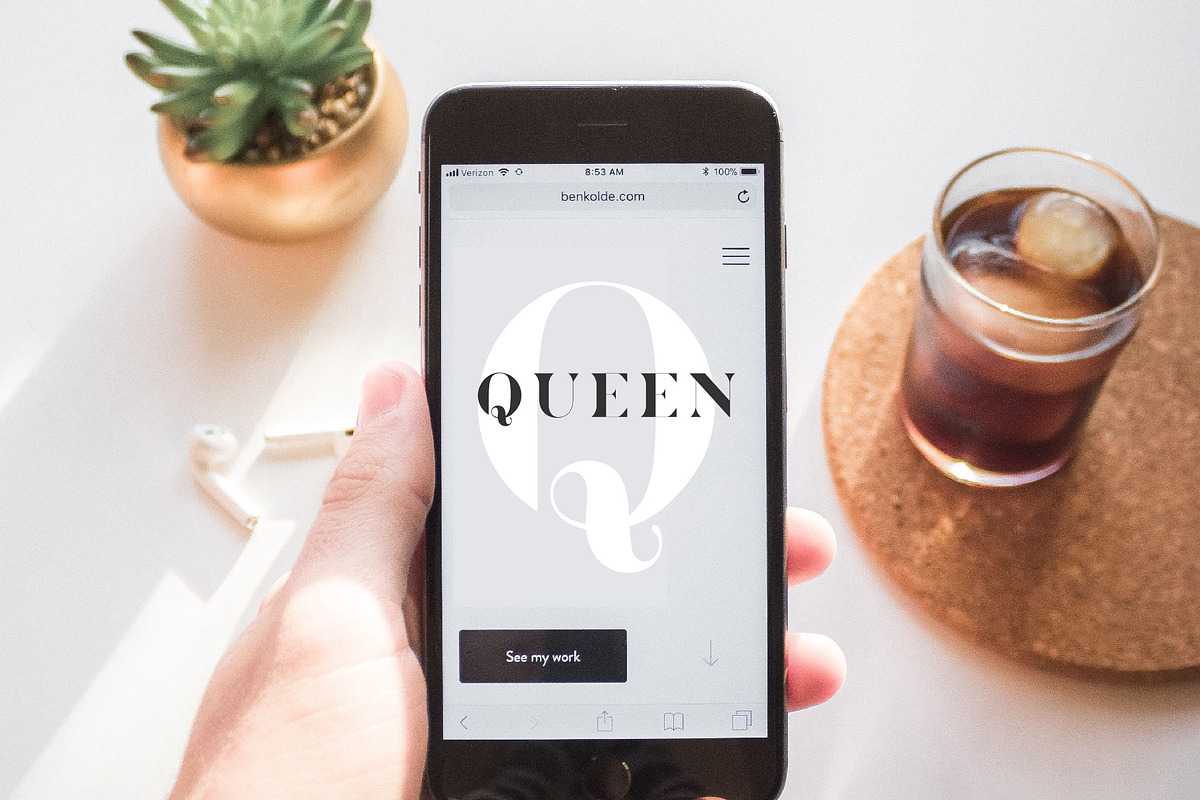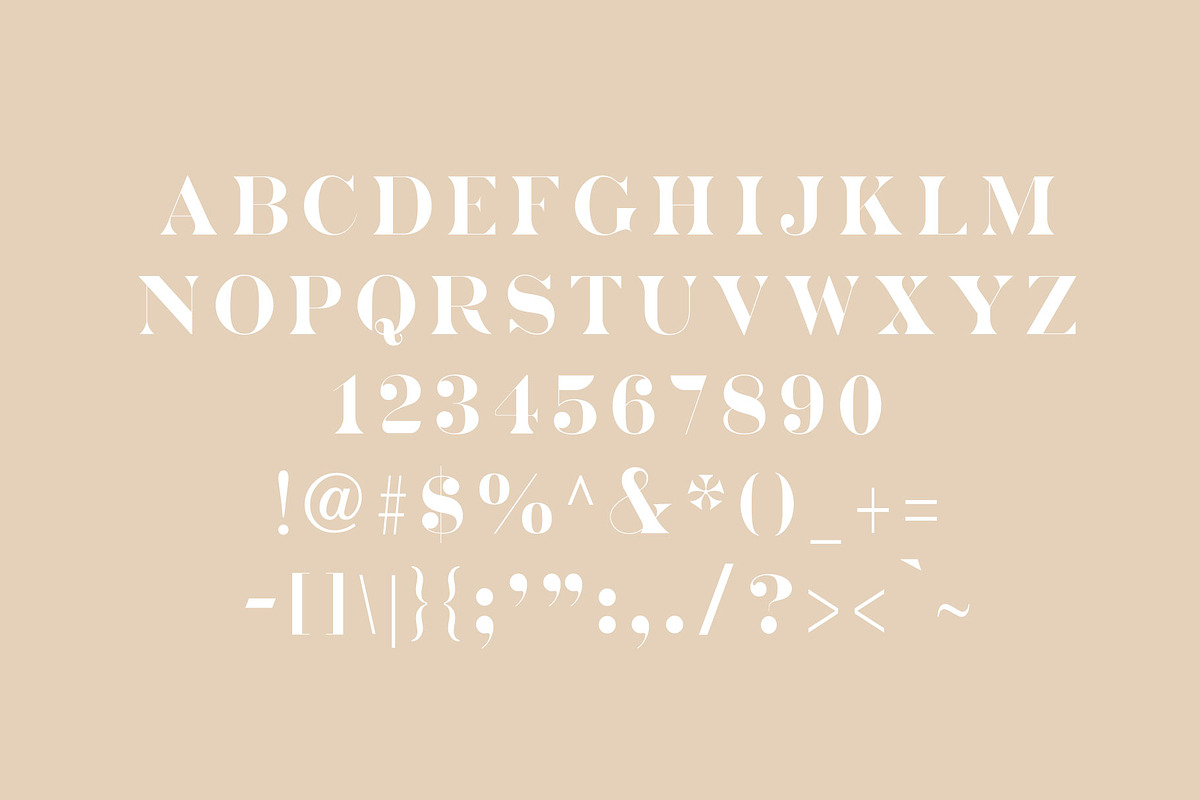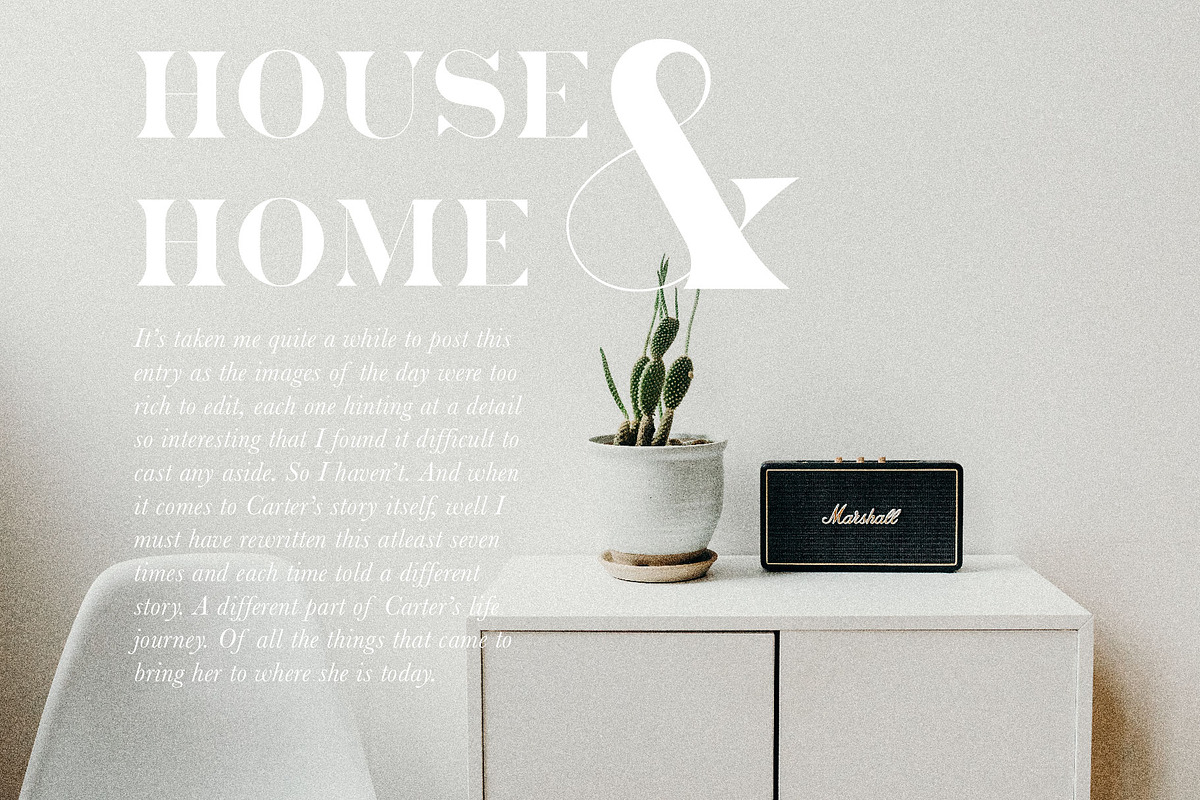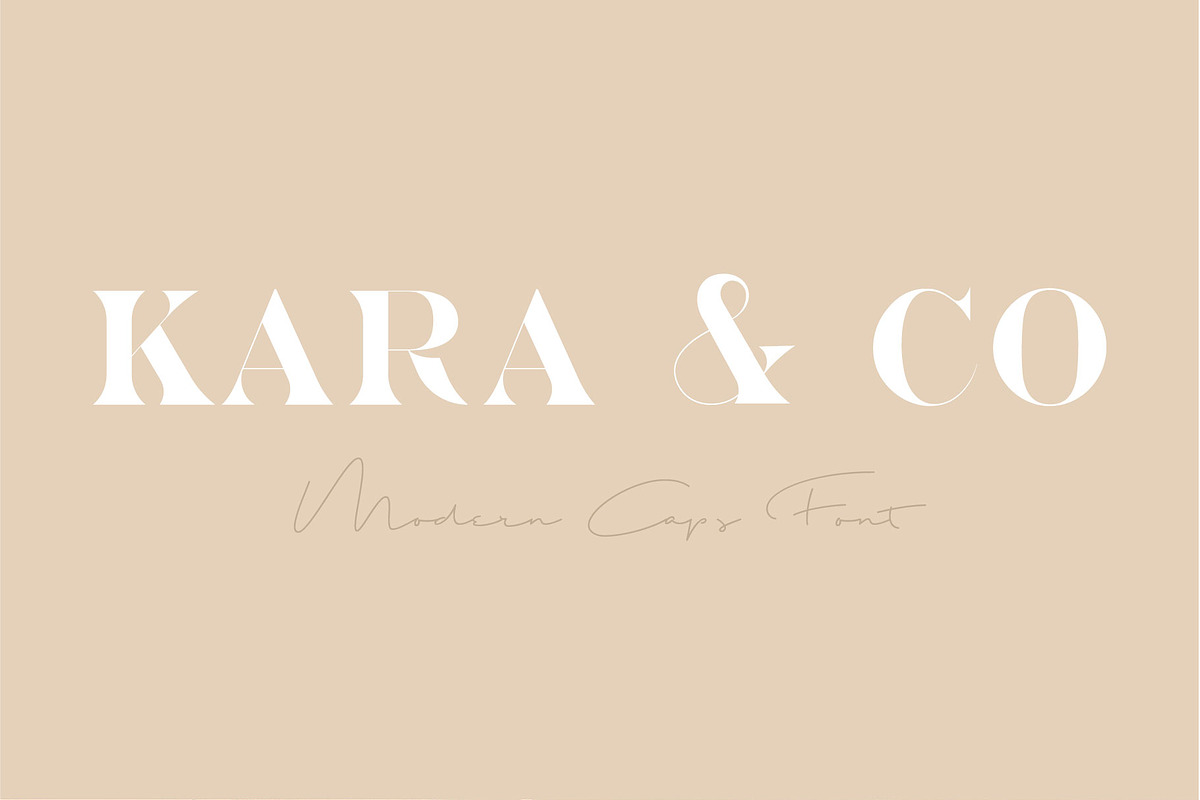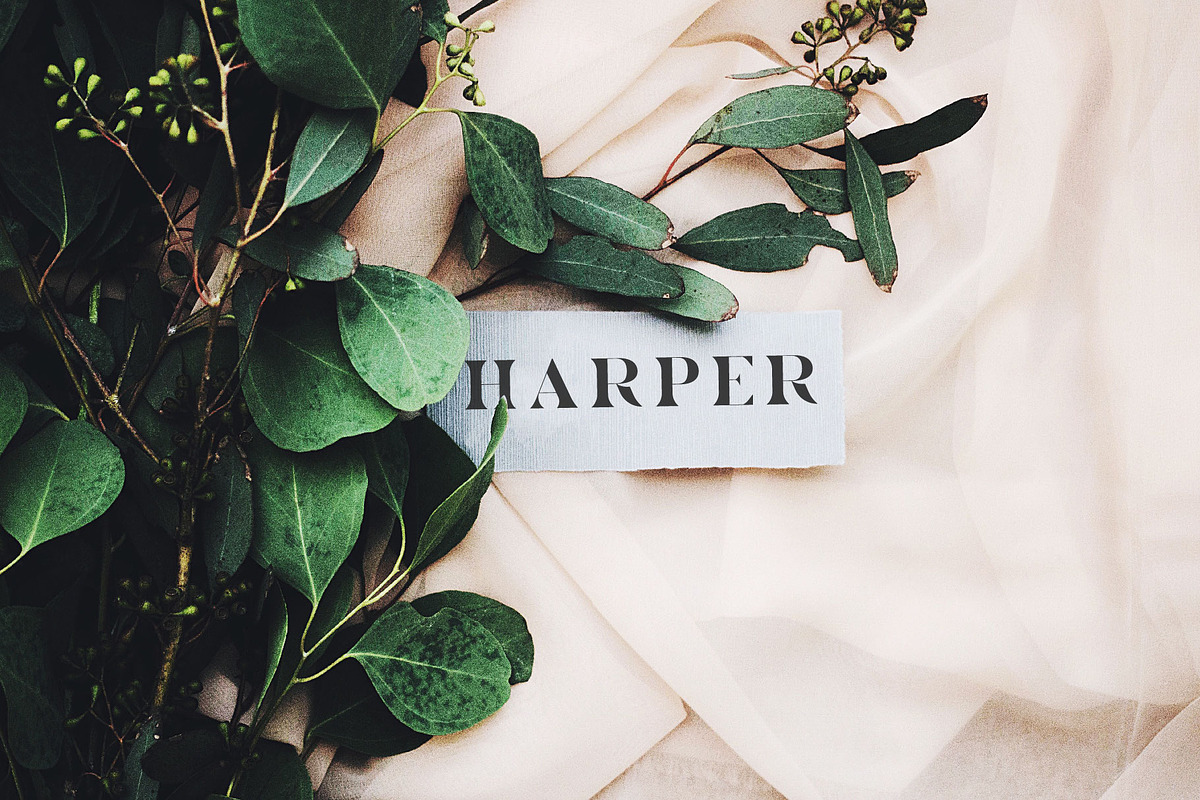
Kara & Co - Fashion Serif Font
Kara & Co is a bold yet elegant, sans serif caps font. Great for word-mark logos or fashion mastheads.The typeface is both feminine and strong with sharp angles and soft curves. It's a versatile typeface that's full of sleek curves and one you'll use to time and again.
With numbers and punctuation
Great for monograms or word-mark logos
Great for pull quotes and mastheads